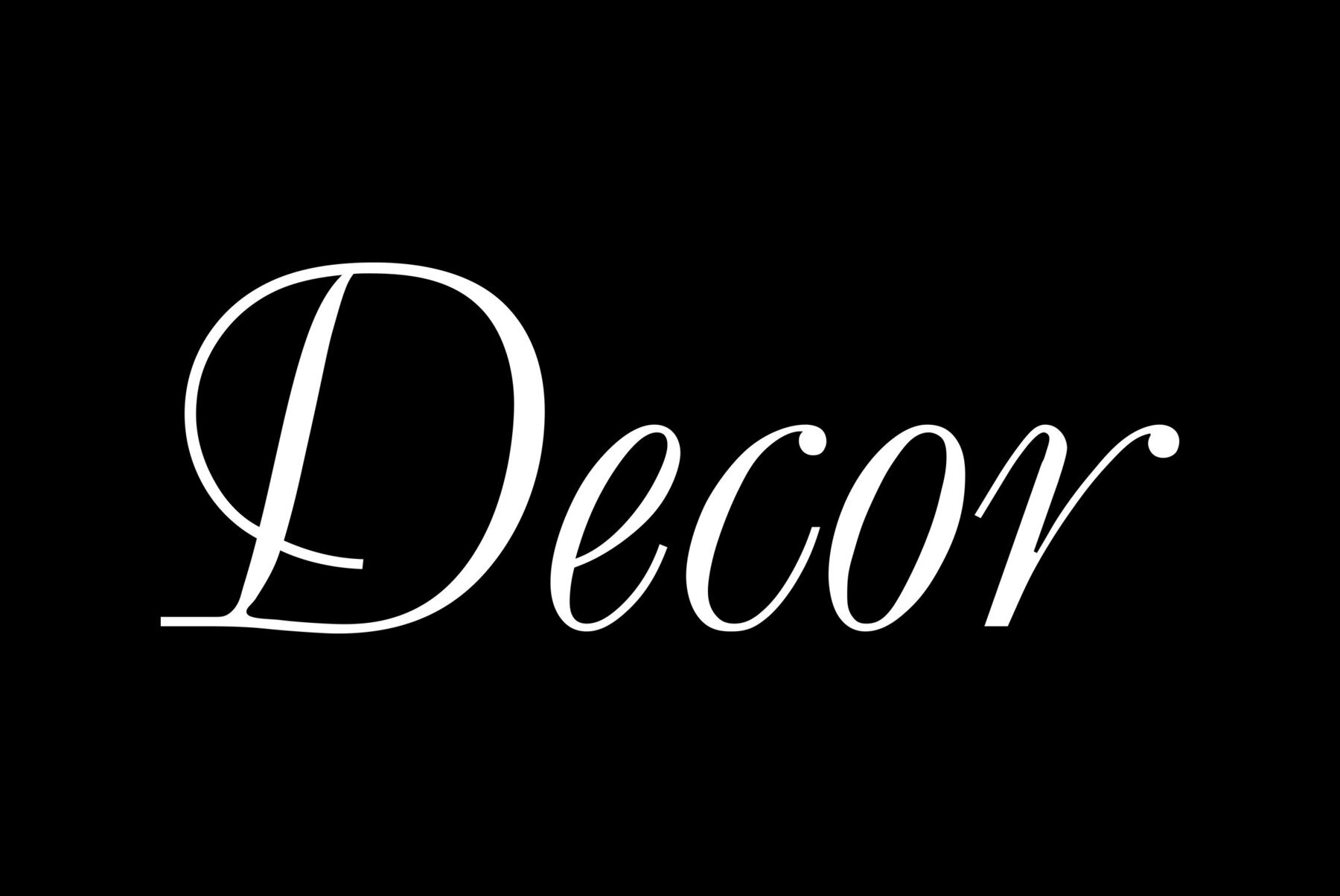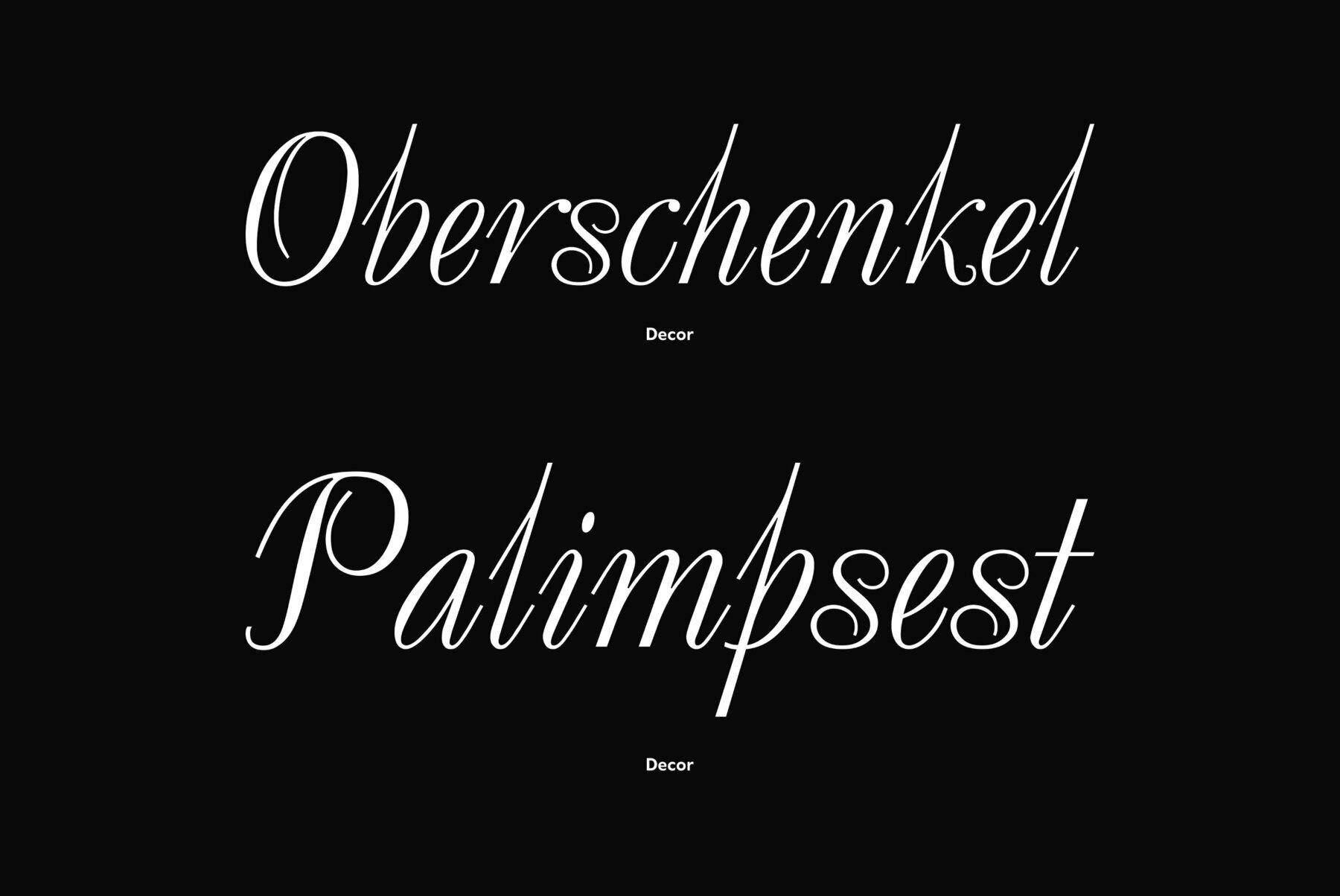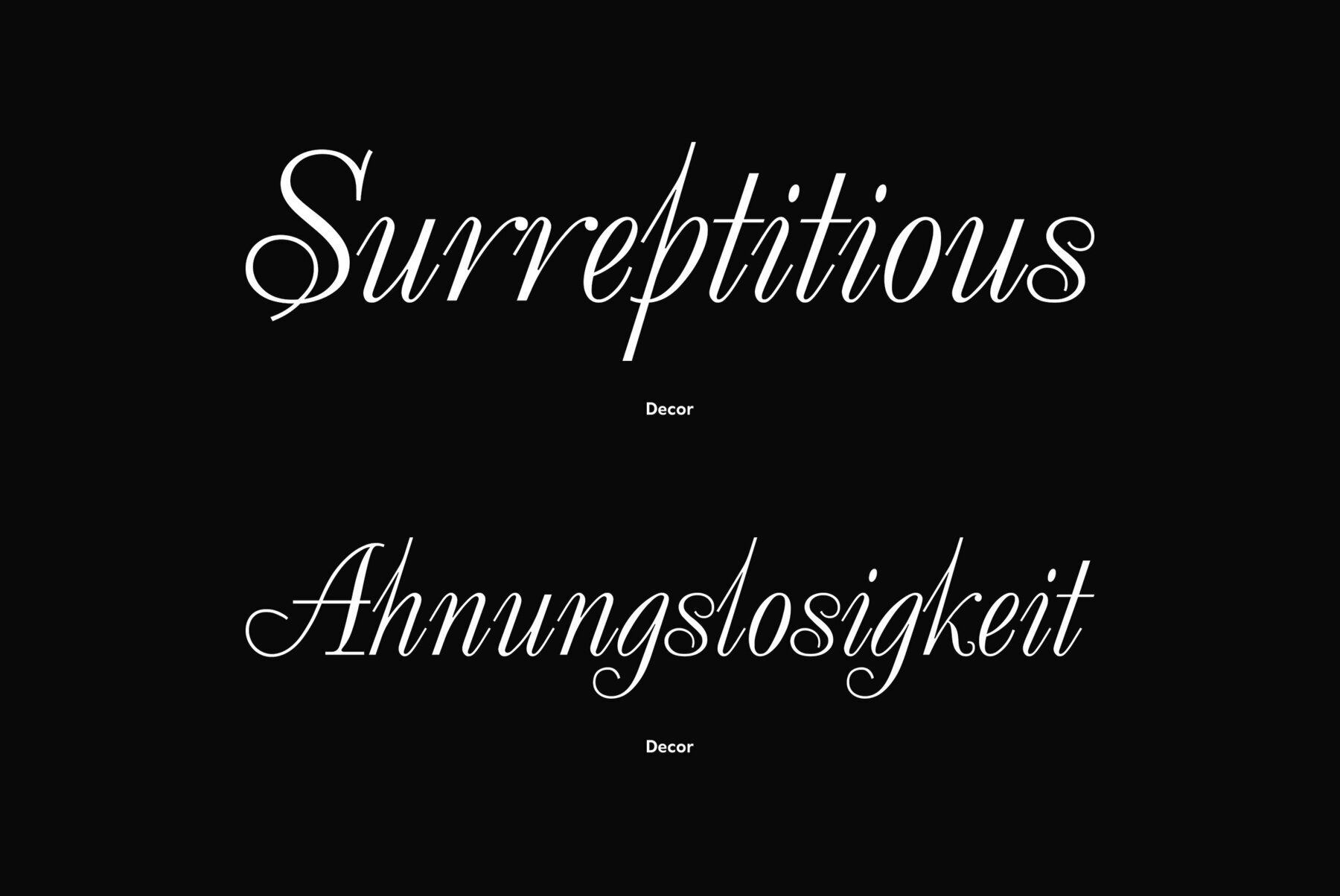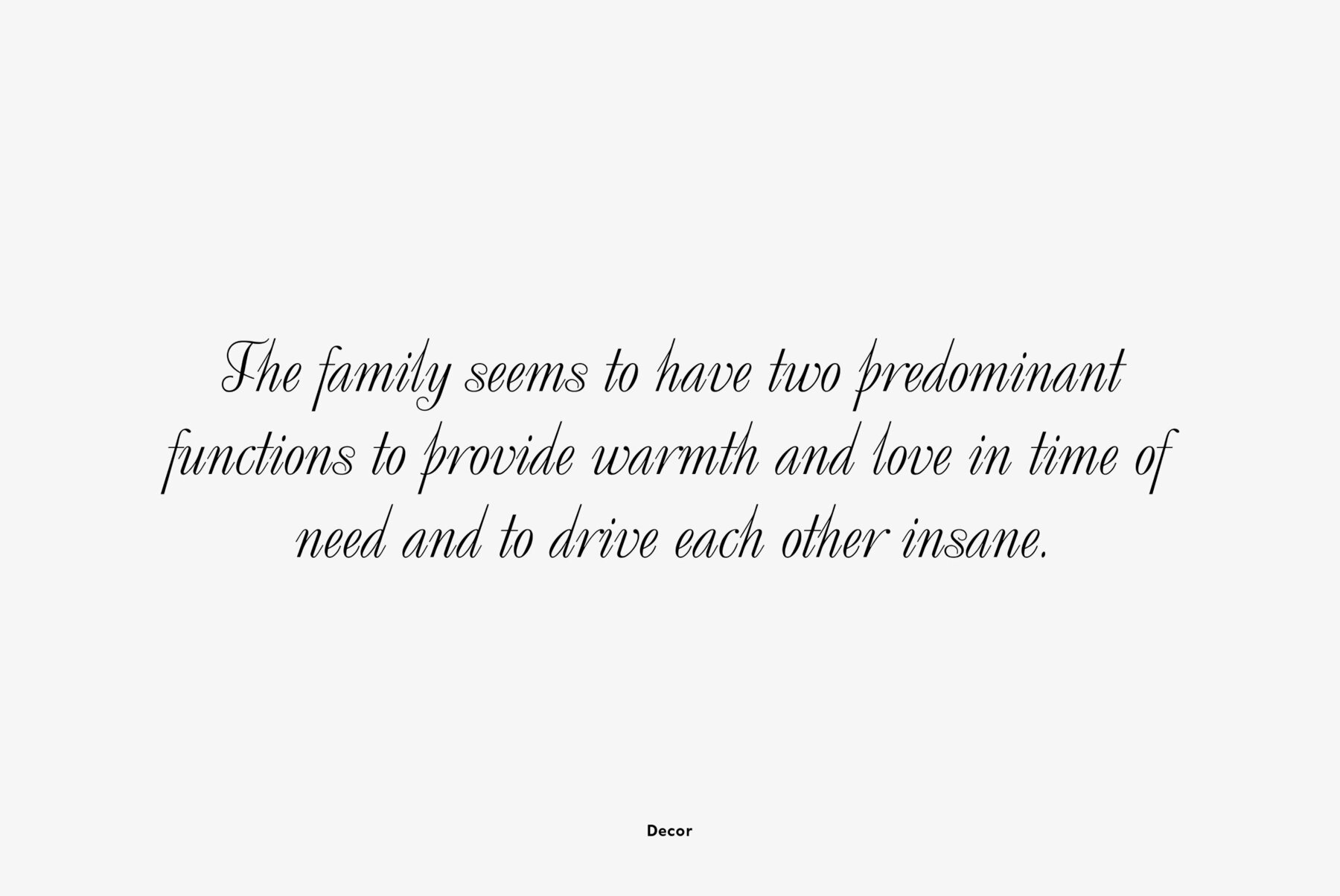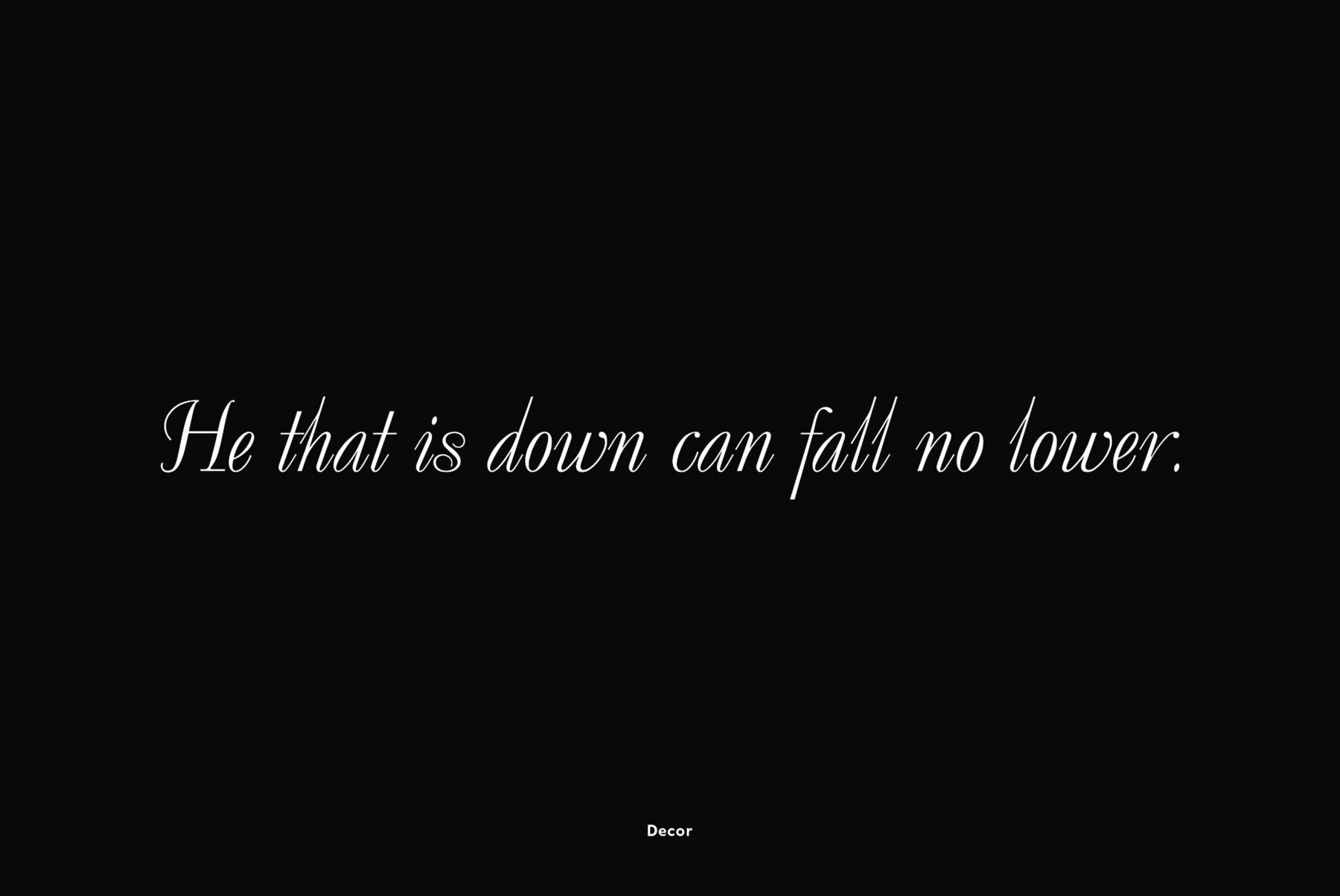
Designed in 1989 by Gennady Baryshnikov with participation of Vladimir Yefimov. Based on the calligraphic typeface of 1979 by Moscow book and type designer Pavel Kuzanyan (1901–1992). For use in advertising and display typography.